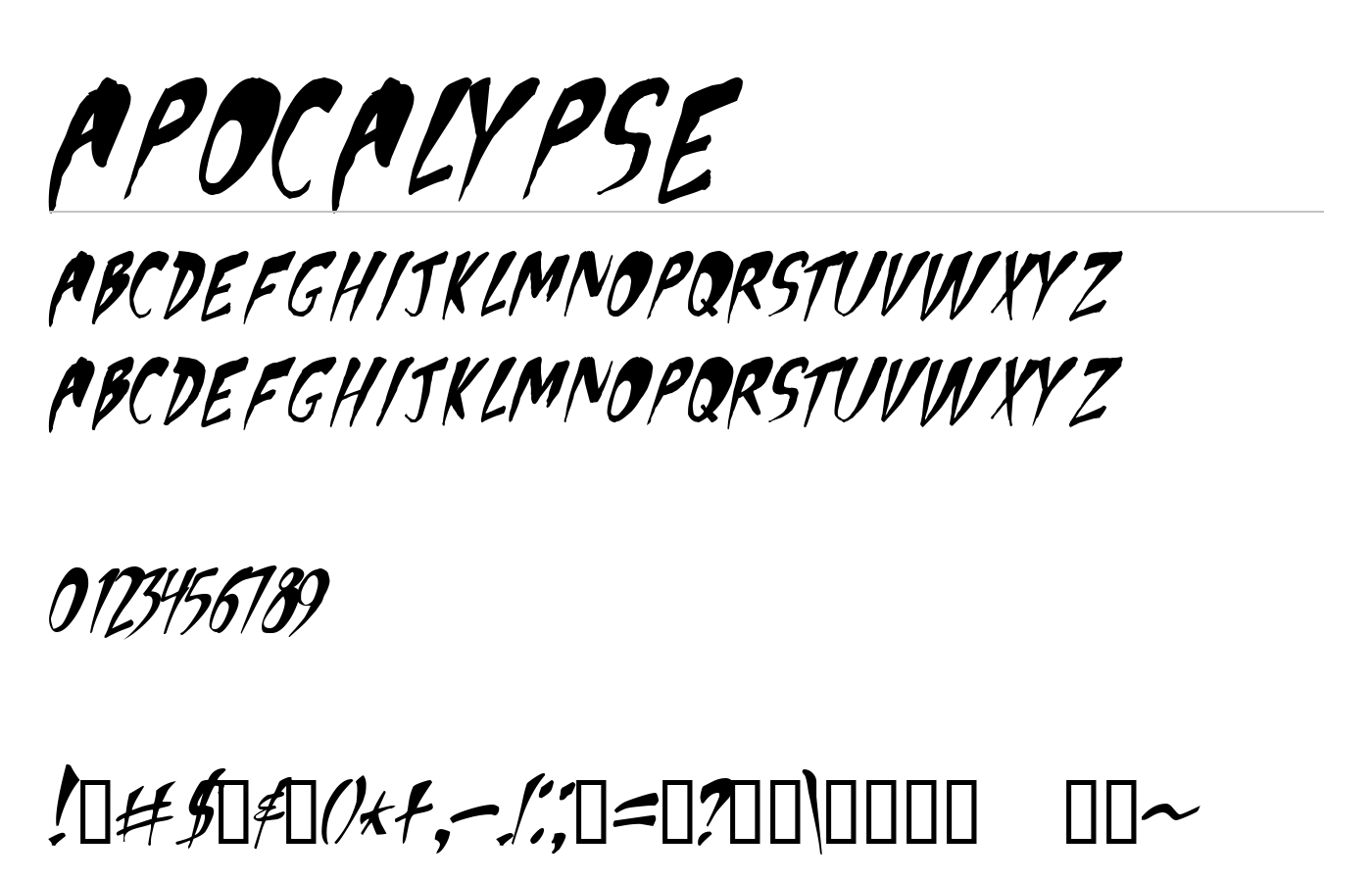
Apocalypse Font is a bold, brush-style display typeface with sharp, energetic strokes that evoke a sense of urgency and intensity. Its irregular, edgy letterforms and dynamic weight variations make it perfect for impactful headlines, posters, and branding that aim to convey a dramatic, rebellious, or adventurous mood. This font works best in creative and expressive designs where strong personality and visual impact are key.
Apocalypse Font
About Apocalypse Font
| Font family | Apocalypse Font |